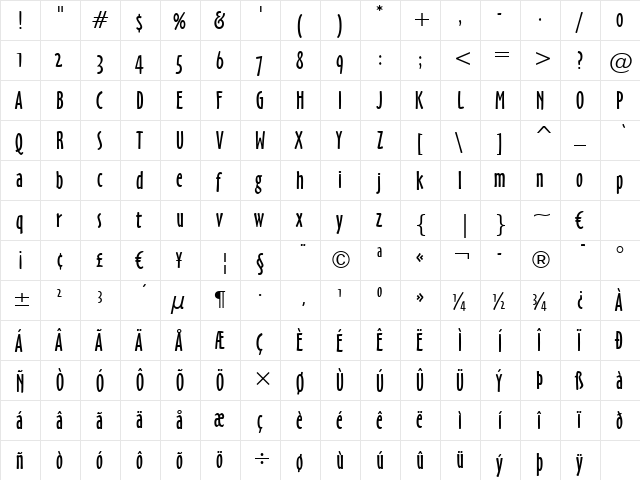
OzHandicraft BT Roman Font Preview
OzHandicraft BT Roman
OzHandicraft BT Roman Font Details
Design Context for OzHandicraft BT Typeface
OzHandicraft BT flows with the natural rhythm of handwritten lettering, making it ideal for designs that call for warmth and personal expression.